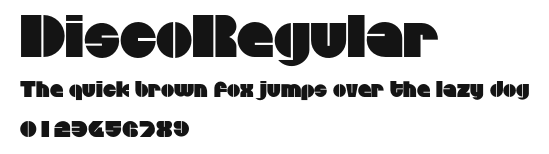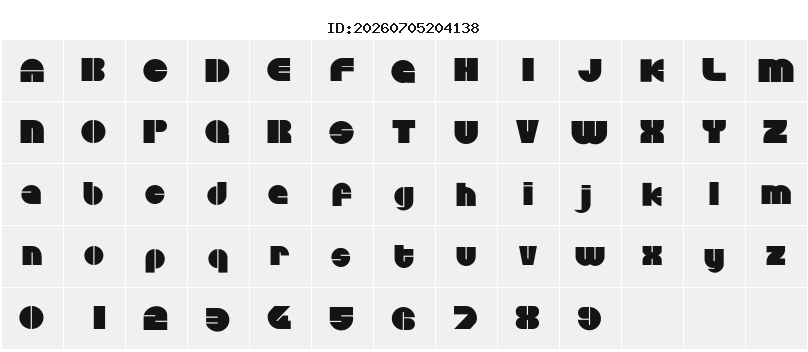
DiscoRegular Preview
About DiscoRegular.otf
DiscoRegular.otf is a modern, elegant sans-serif font designed for ultimate readability and visual harmony. Perfect for branding, headlines, web design, and print materials.